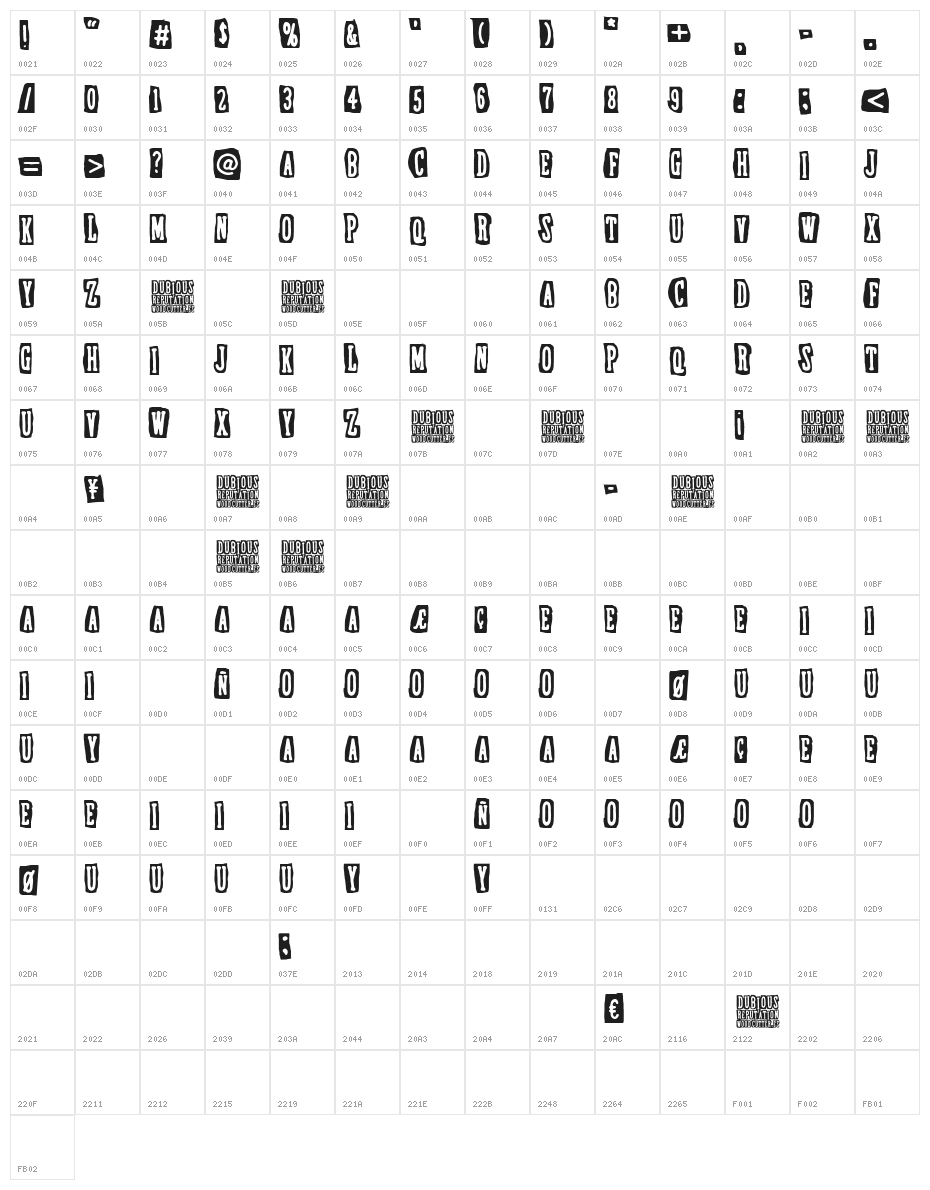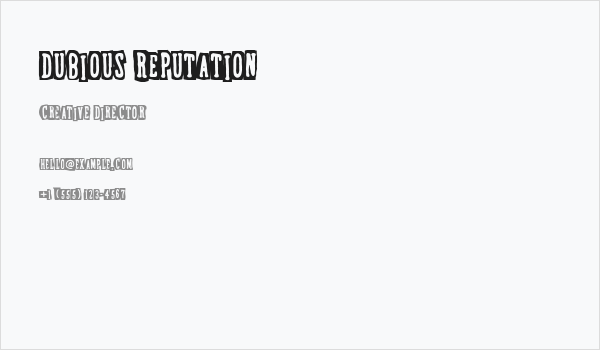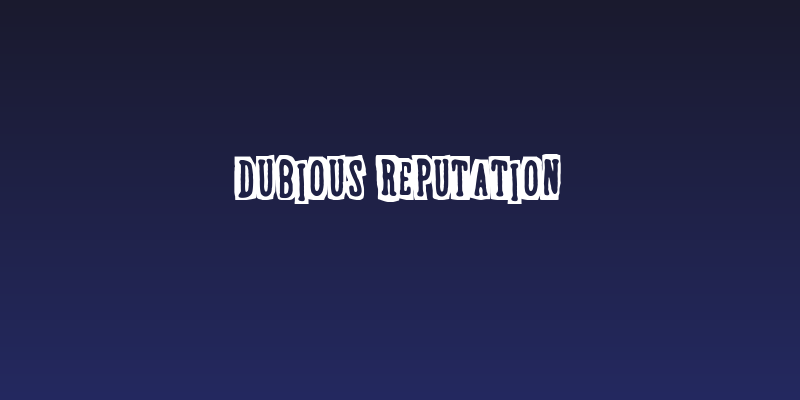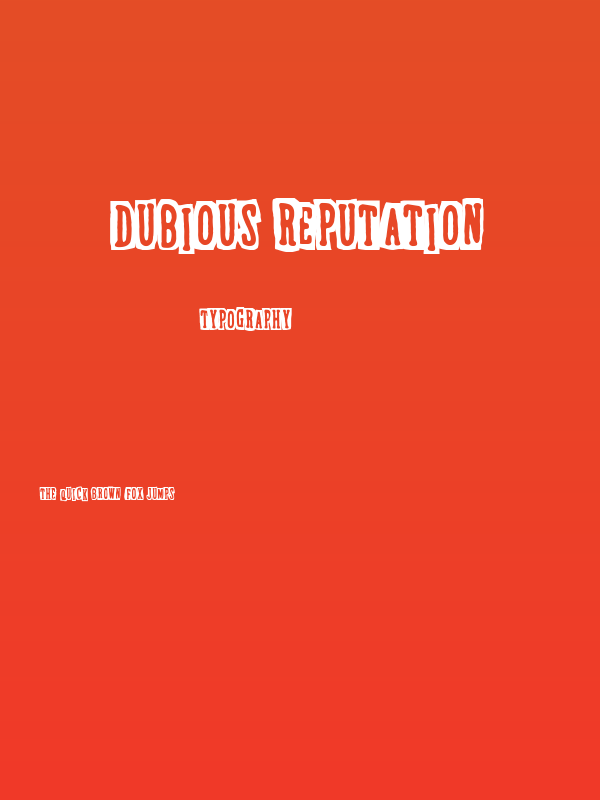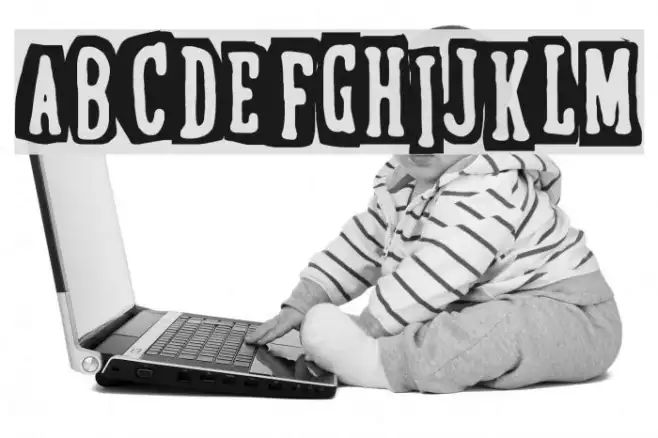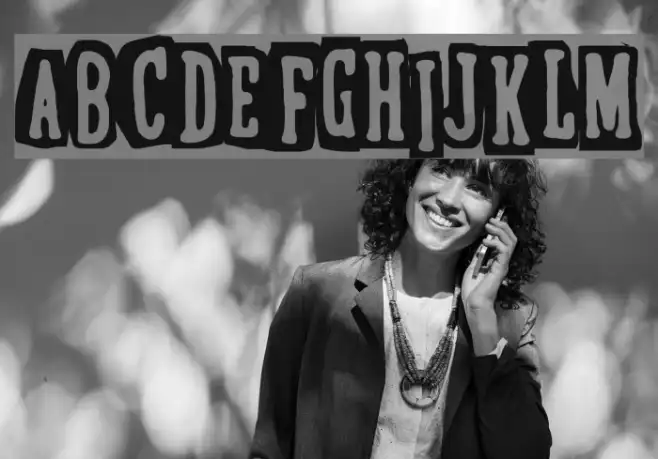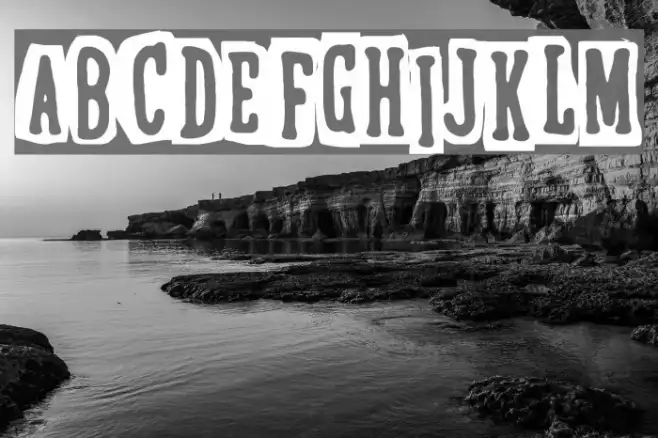
Dubious Reputation Font
Dubious Reputation Description
This font features a bold and playful design with a strong, impactful presence. The characters are heavily stylized with thick strokes and a shadow effect that gives them a three-dimensional appearance. The letters have a slightly irregular shape, adding a whimsical and informal touch. The overall look is reminiscent of vintage poster fonts, making it ideal for projects that require a fun and eye-catching typeface. The numbers and special characters maintain the same bold style, ensuring consistency across all text elements.
| Proposed Projects | Ideal for posters, event flyers, children's book covers, and any design needing a fun, eye-catching typeface. |